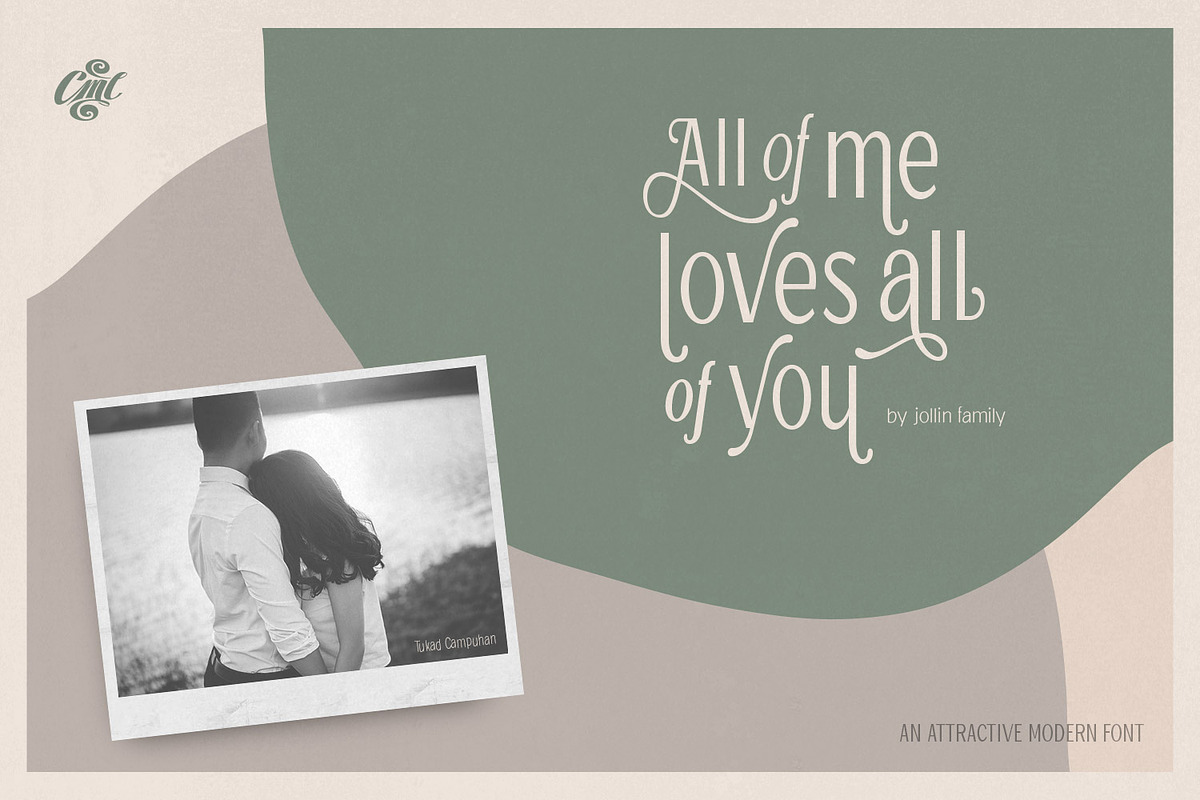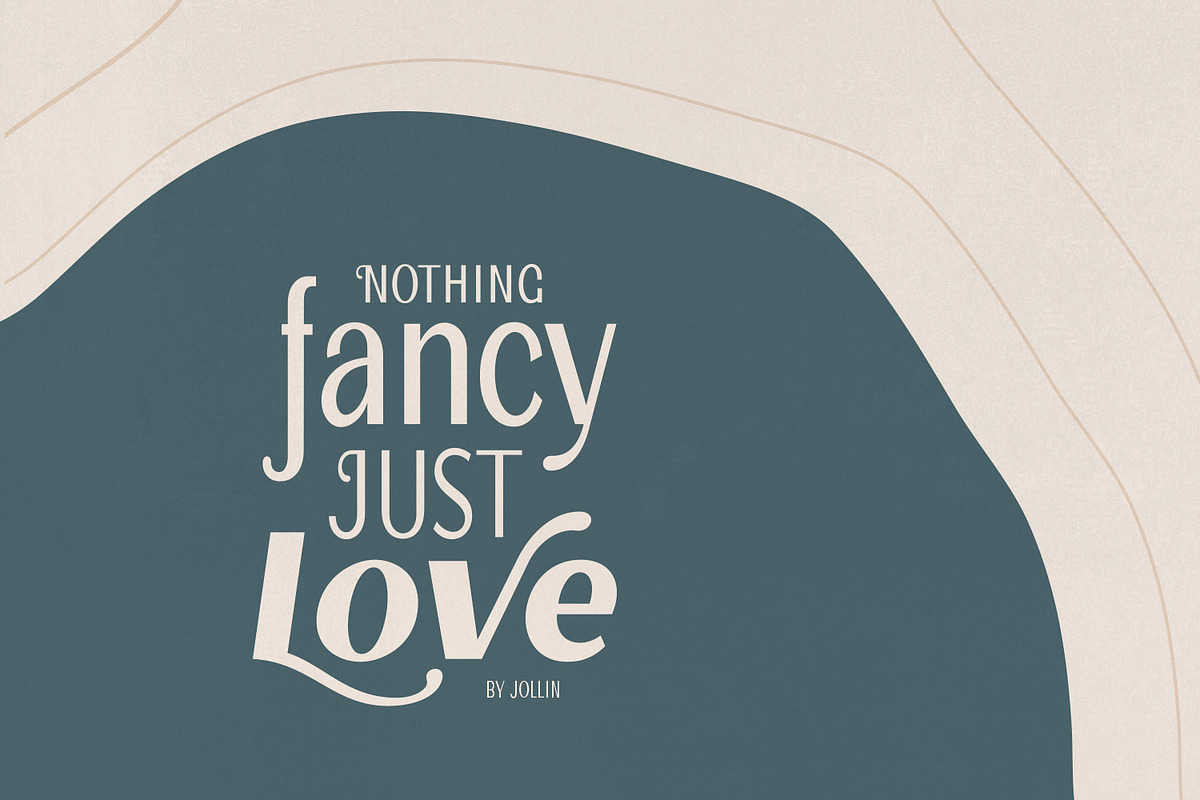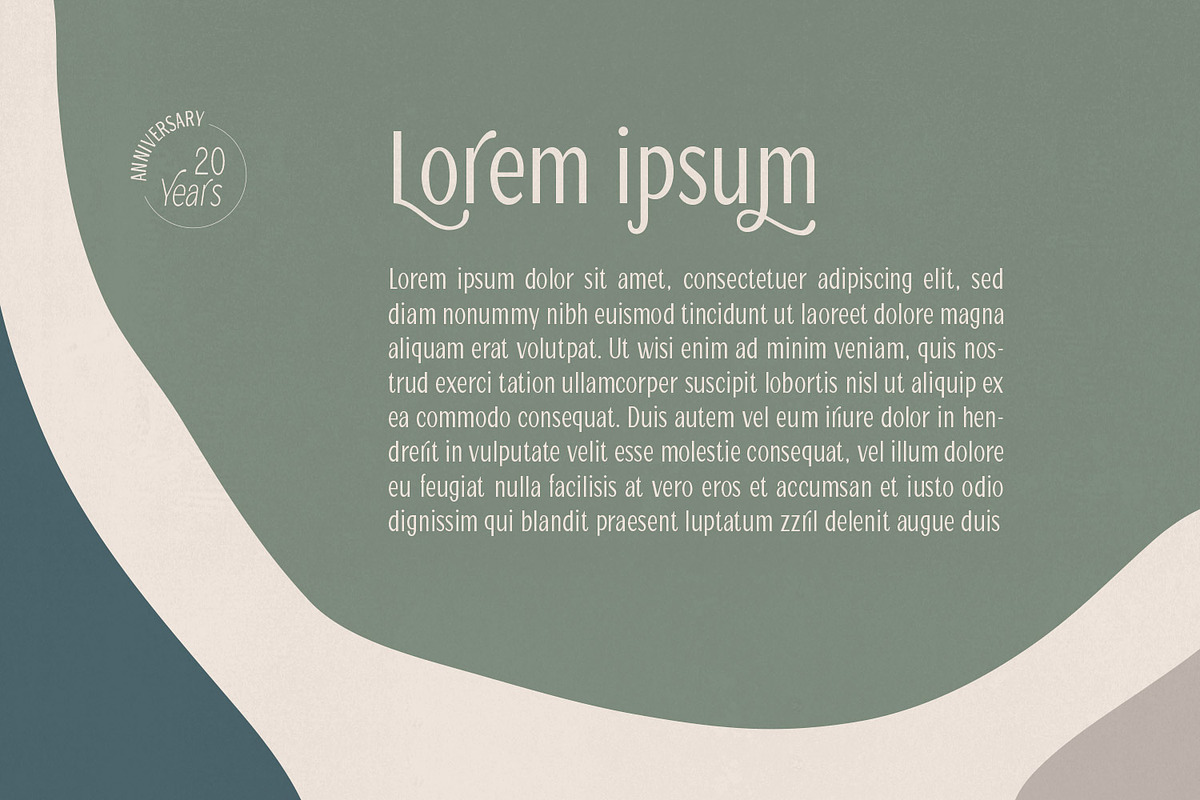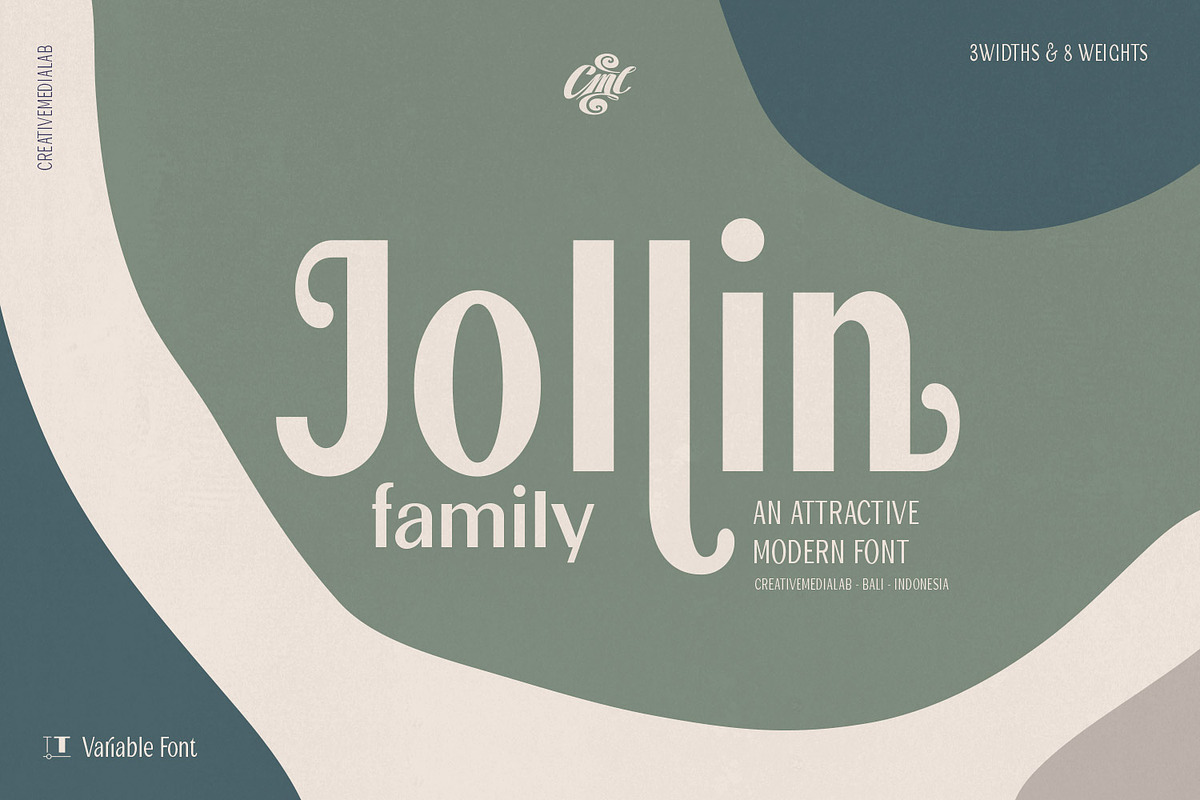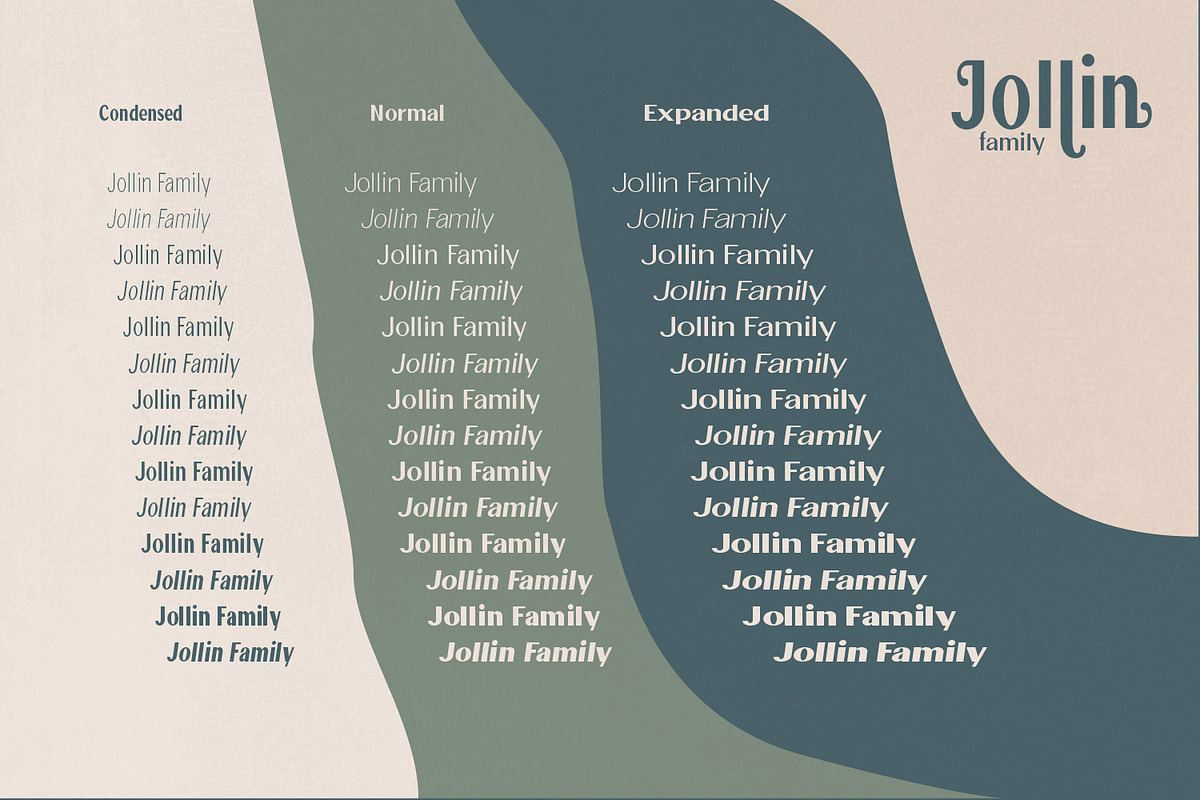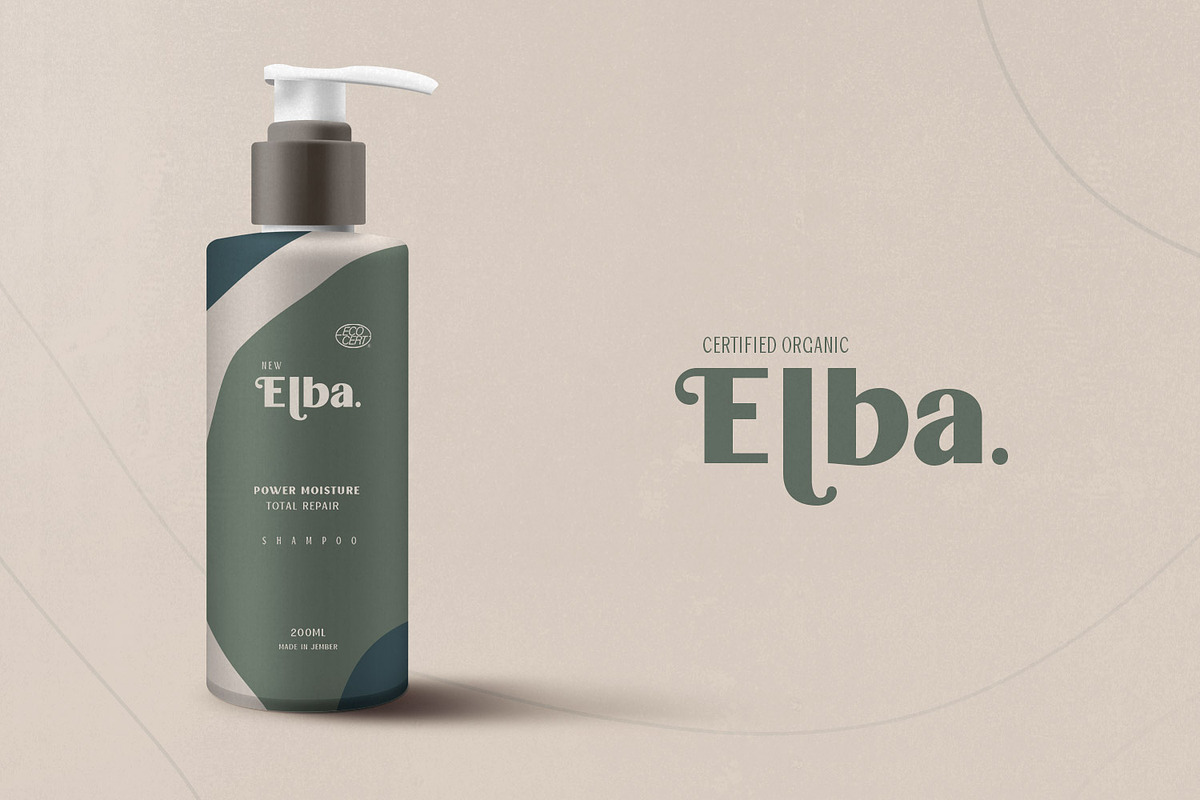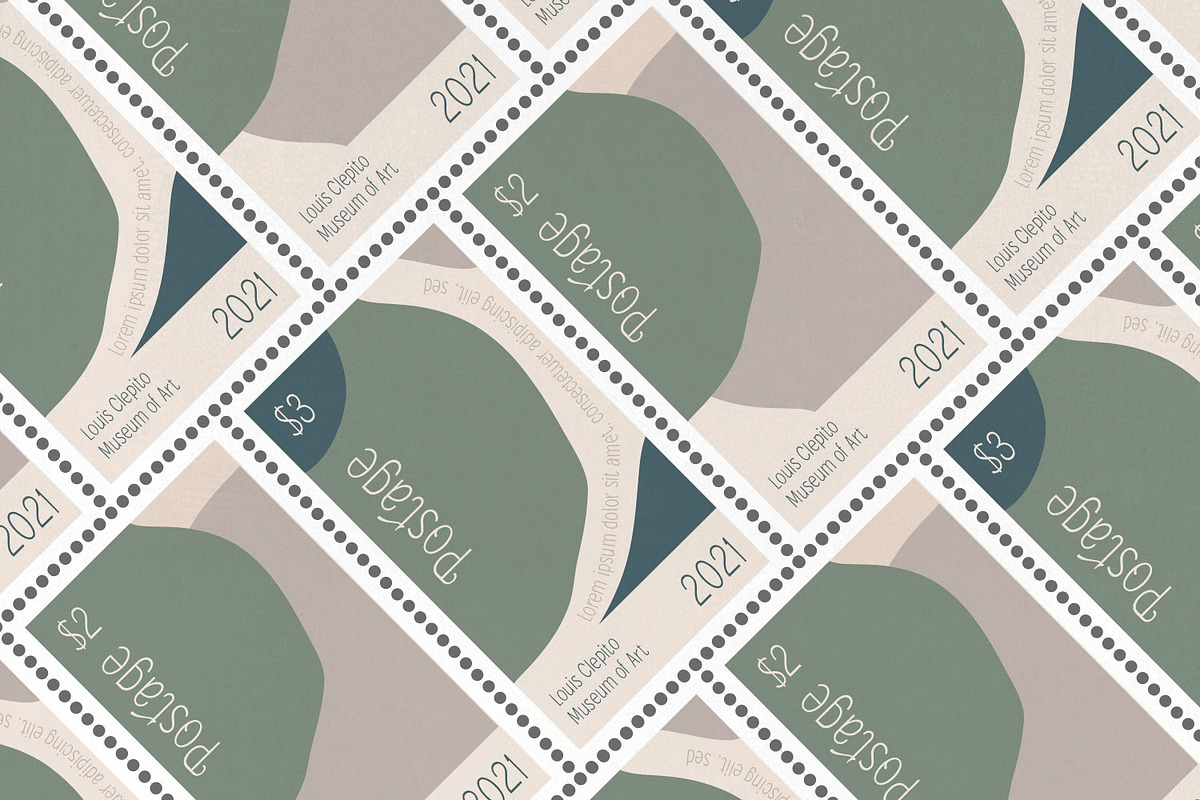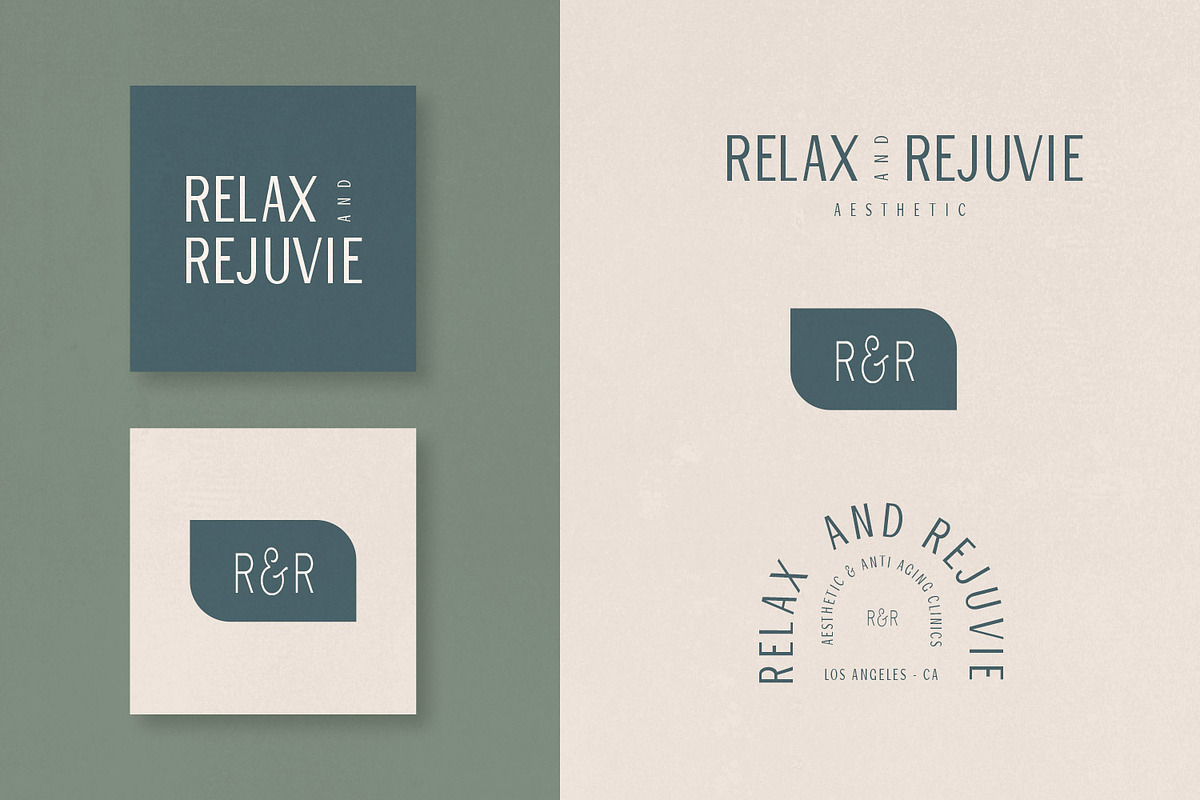
Jollin Family - Variable Font
Jollin Family is a pretty, attractive and fashionable sans serif, has ton of alternates that you can use to create a simple but pretty letters.
Jollin has 8 weights and 3 Widths and also available in Variable version
Jollin Family Variable contain three configurable axes: weights, width, and slant, you can adjust the font axis setting to get the desire size.
Jollin Family Perfect for Heading, logo creation, Advertisements, Christmas, Label, business card, branding and more! Get inspired by its fashionable appeal!